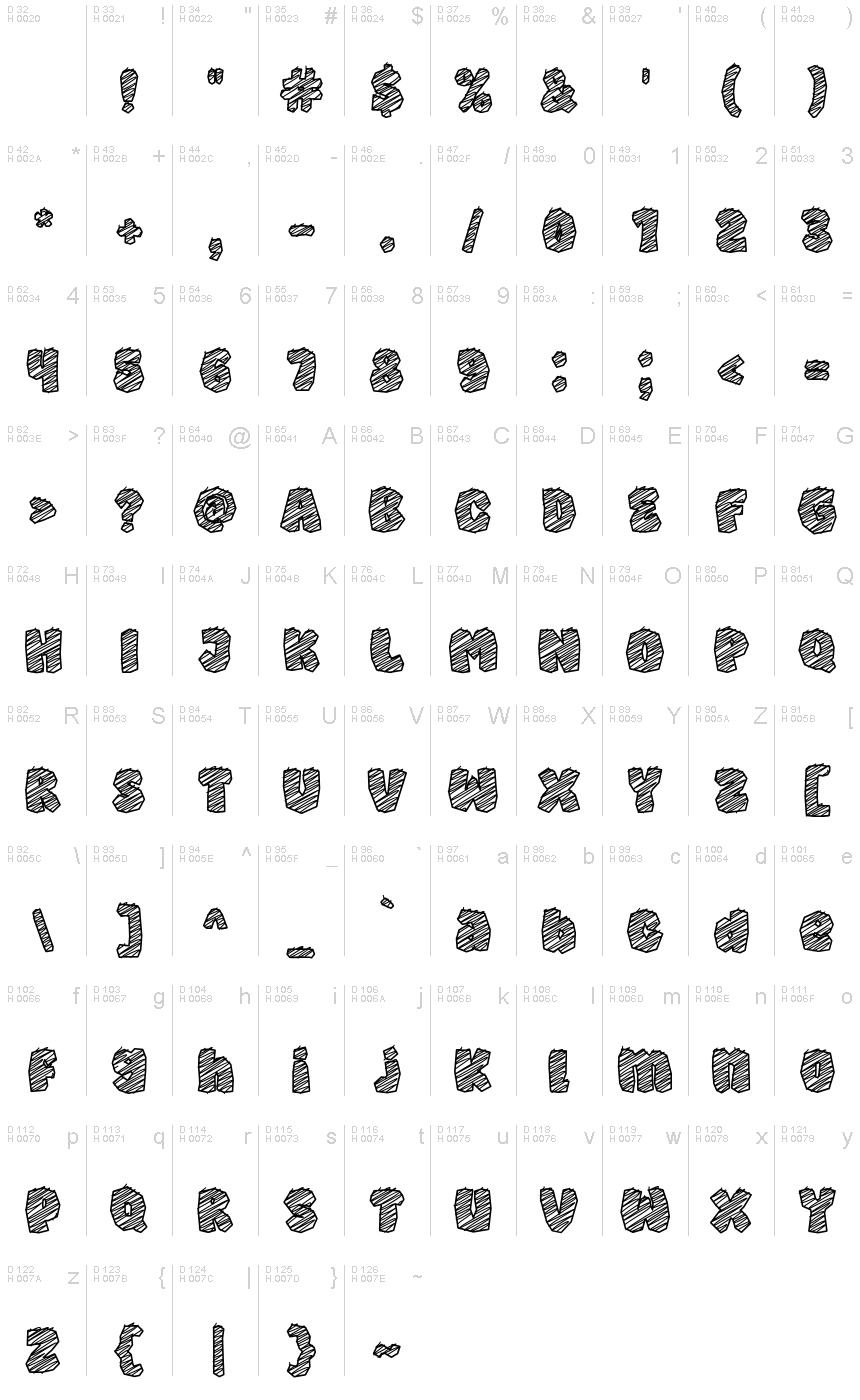
Super Chalk
Super Chalk, a bold and dynamic display font crafted by fsuarez913, commands attention with its striking, imperfect strokes. This captivating typeface exudes a hand-drawn aesthetic, blending the rawness of chalk with a refined, contemporary sensibility. The irregular edges and uneven thickness of the letterforms lend an authentic, artisanal charm, evoking a sense of personality and individuality.
Versatile in its applications, Super Chalk thrives in attention-grabbing designs, where its distinctive character can shine. From commanding headlines and impactful logos to eye-catching branding and expressive typography, this font effortlessly transcends the boundaries of traditional digital typefaces, inviting designers to embrace its unique and vibrant personality.